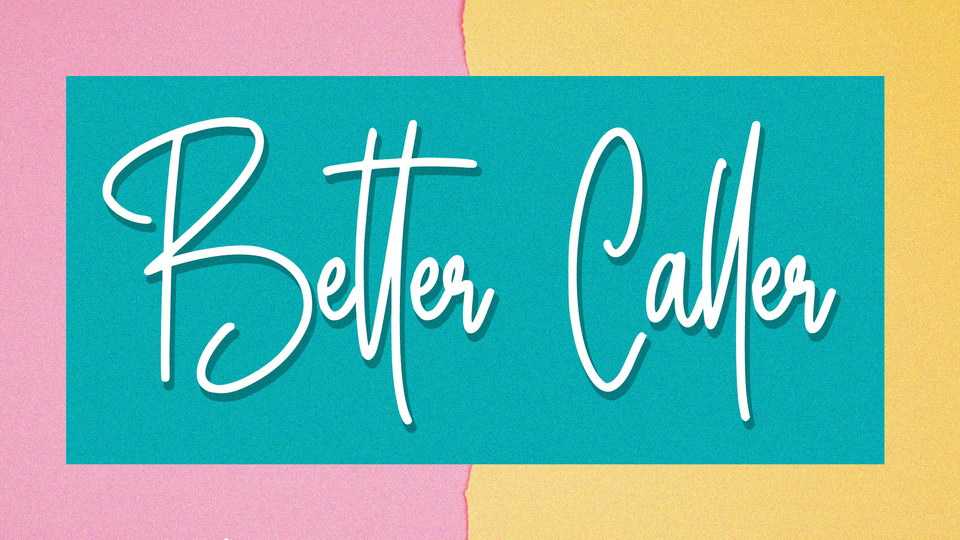
Download Better Caller font, a modern signature style handwritten. Better Caller script is perfect for logos, branding, social media, quotes and other everyday designs.
Designer: Abraham Type